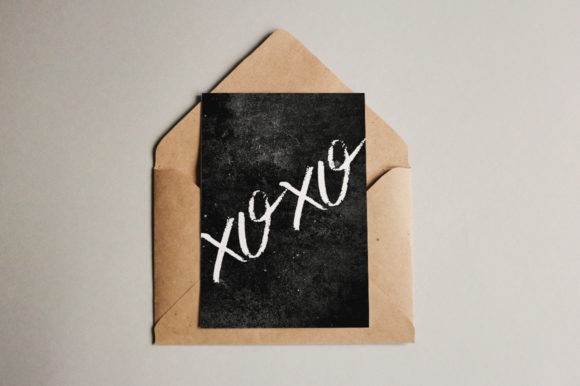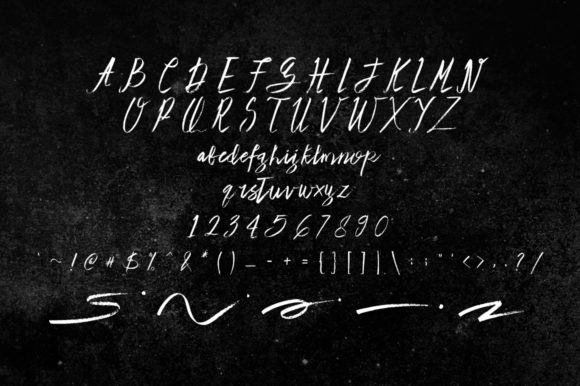
Lote Santos Font
About Lote Santos Font
Lote Santos is a brushed handwritten font. Its natural and unique style makes it incredibly fitting to a large pool of designs. The only limit is your imagination!